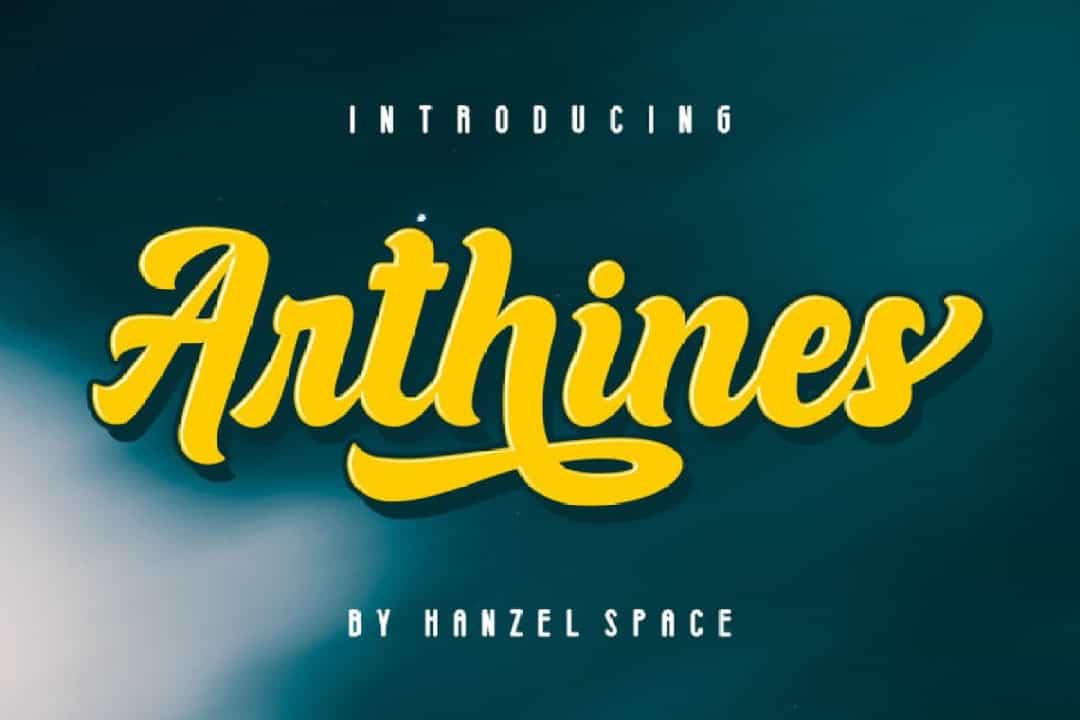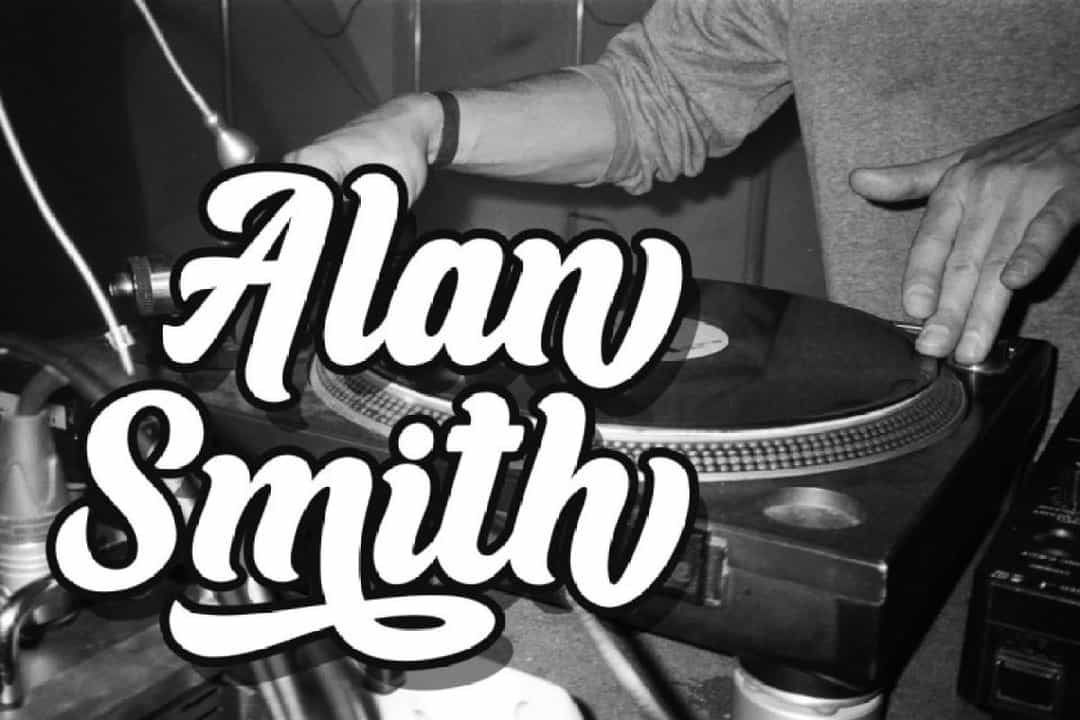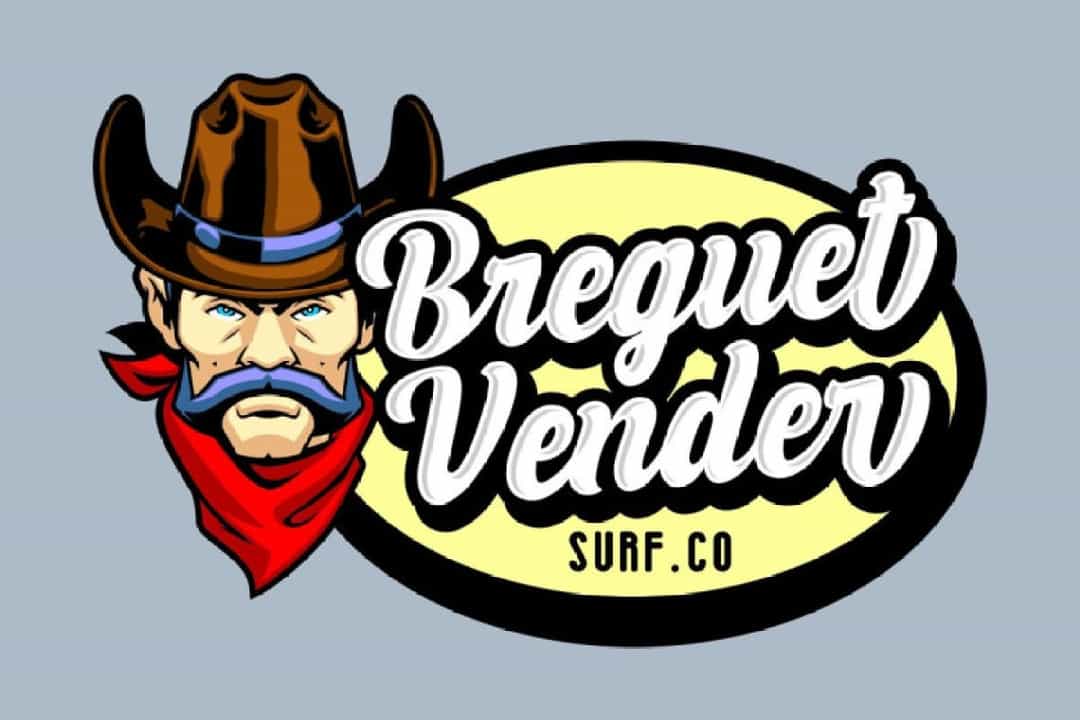
Arthines is an amazing and stylish new font that will surely captivate everyone’sattention. From the Hanzel Space, here are the simplification of digital letters for you. Besides, there are lowercase and uppercase letters, ligatures, and settings for terminal and initial that makes it easy to use.